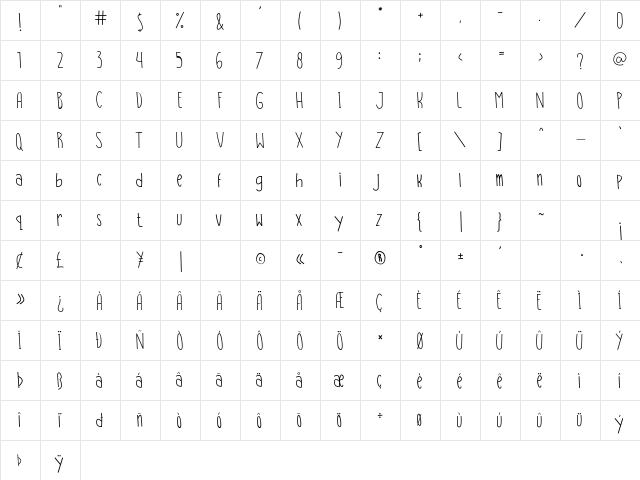
Classic Story Regular
Design Context for Classic Story Typeface
Classic Story wears its vintage influences proudly, with letterforms that recall mid-century signage, classic packaging, and nostalgia-driven design.
Font Pairing: Combine Classic Story with a simple slab or neutral sans — period-accurate companions reinforce the vintage feel without competing for attention.
Pro Tip: Lean into Classic Story's period character by pairing it with aged paper textures, muted colour palettes, and vintage illustration styles.